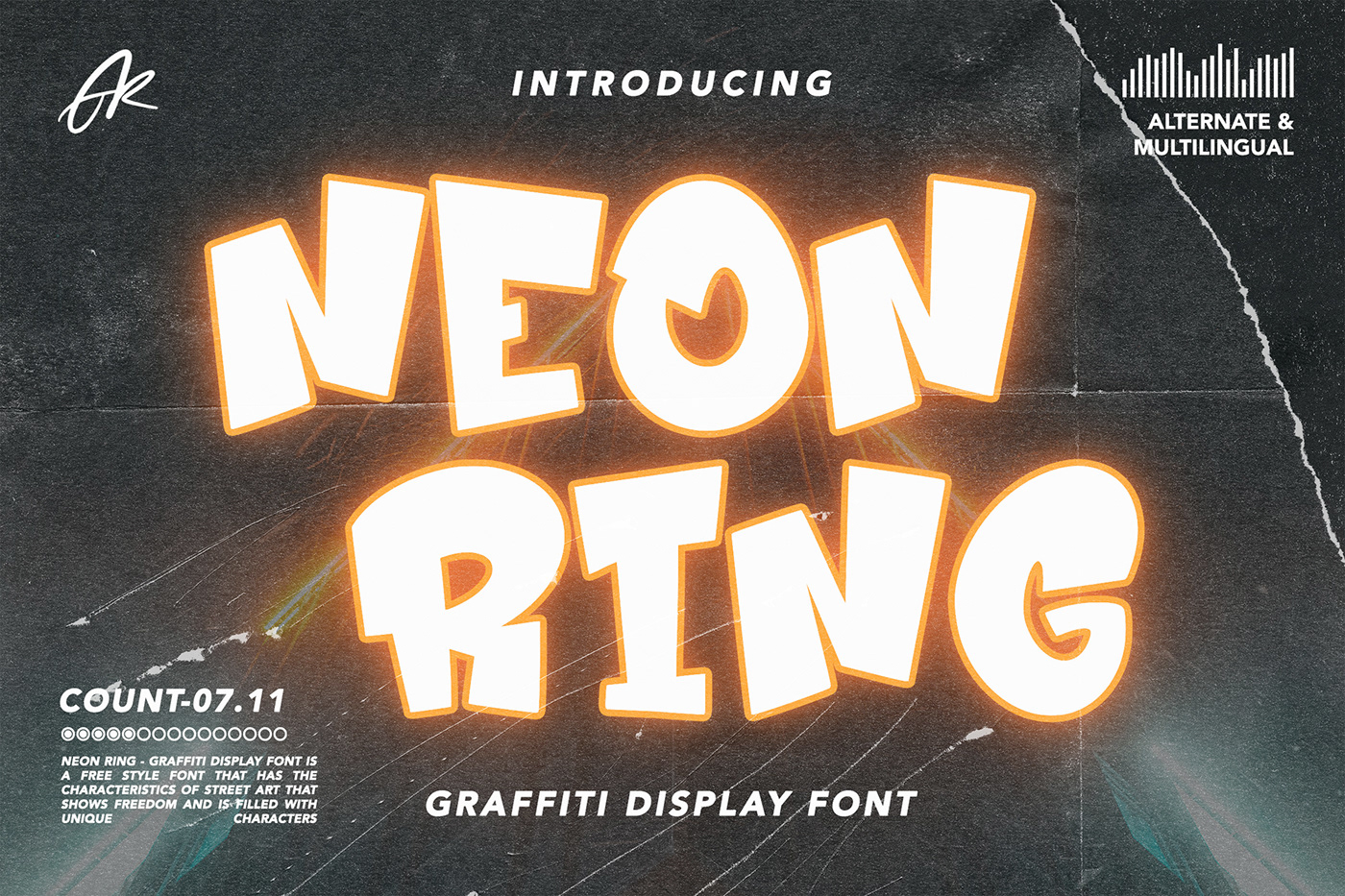
Neon Ring - Free Graffiti Display Font
Neon Ring is a free graffiti display font from Arendx Studio. Neon Ring is a free-style font that has the characteristics of street art that shows freedom and is filled with unique characters to make your projects stand out.